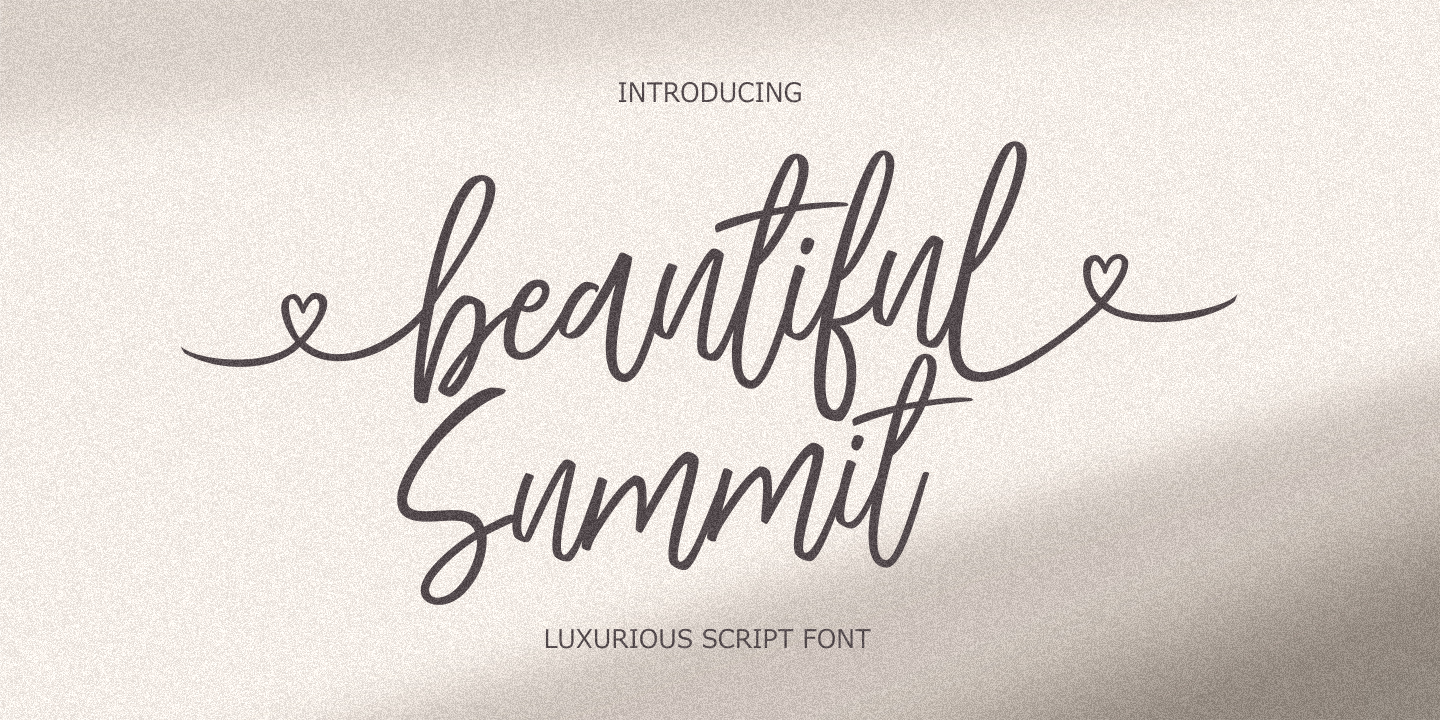
The Beautiful Summit Font Free Download is an elegant and inspiring script typeface, making it an excellent choice for designs that aim to convey grace, aspirational beauty, and a personalized touch. This captivating font is perfectly suited for luxury branding, wedding invitations, photography watermarks, fashion blogs, high-end event stationery, and inspirational quotes. Imagine it adding a refined flourish to a boutique hotel's logo, providing a heartfelt yet elegant feel for a custom-made gift label, or lending an air of personalized luxury to an exclusive product's packaging. Its fluid strokes and natural connections ensure your message is delivered with warmth and an undeniable sense of sophisticated artistry.
What makes Beautiful Summit Font truly exciting is its ability to instantly infuse designs with a sense of bespoke quality and human authenticity. It's not just a script font; it embodies an organic flow and a delicate precision that makes it incredibly appealing. The beautiful variations in stroke thickness and the effortless connections between letters mimic genuine calligraphy, adding a personal and luxurious feel to any design. Designers will appreciate how easily it brings a sophisticated yet approachable touch to any project, making it ideal for designs that need to feel authentic, elegant, and visually enchanting.
The Beautiful Summit Font family typically focuses on its singular, expressive style, as its strength lies in its authentic script appearance. While you might primarily find a Regular option, its versatility comes from its inherent design and often includes a rich array of swashes, alternates, and ligatures. These additional features allow for extensive customization, enabling designers to create unique and flowing typographic compositions that truly mimic natural handwriting with a refined flair. These focused design elements ensure that the Beautiful Summit Font Free Download provides ample creative opportunities to craft genuinely personal and visually captivating designs.